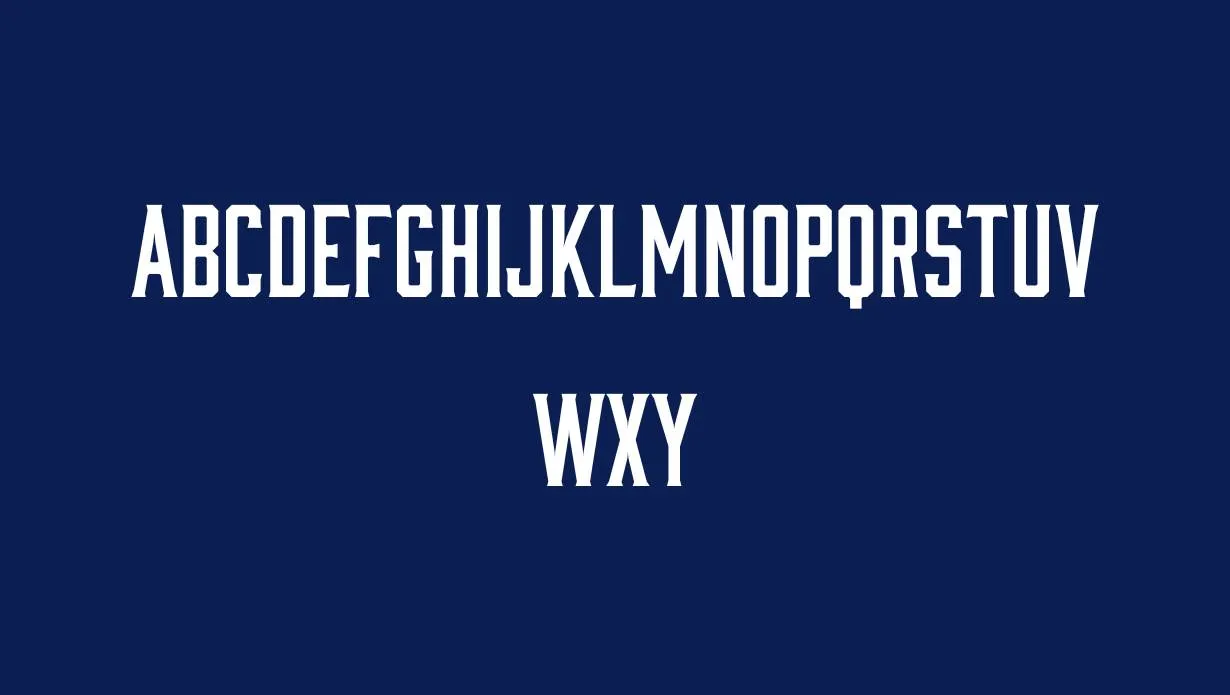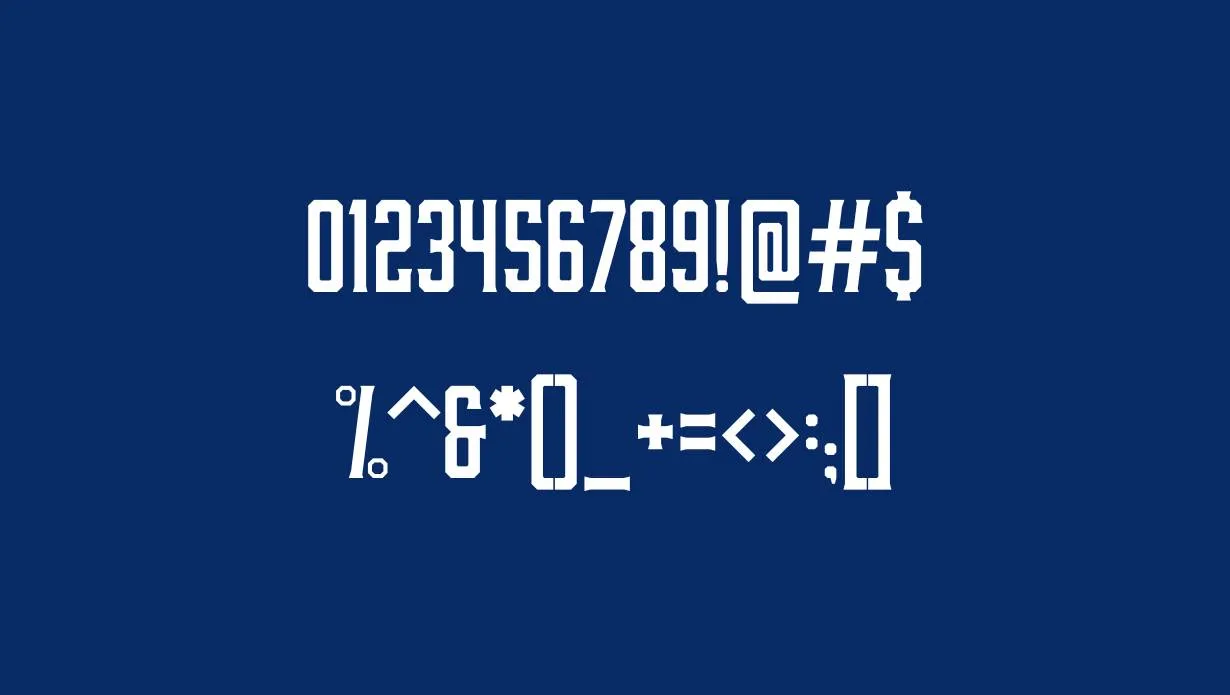
Moonshiner is a display-type font that was designed by Mattox Shuler. The look of this font is very clear and it has high readability which makes it perfect for use in different projects. You can make banners, posters, flyers, and brochures for making attractive projects by using his font.
| Name | Moonshiner Font |
| Designer | Mattox Shuler |
Moonshiner Font Family